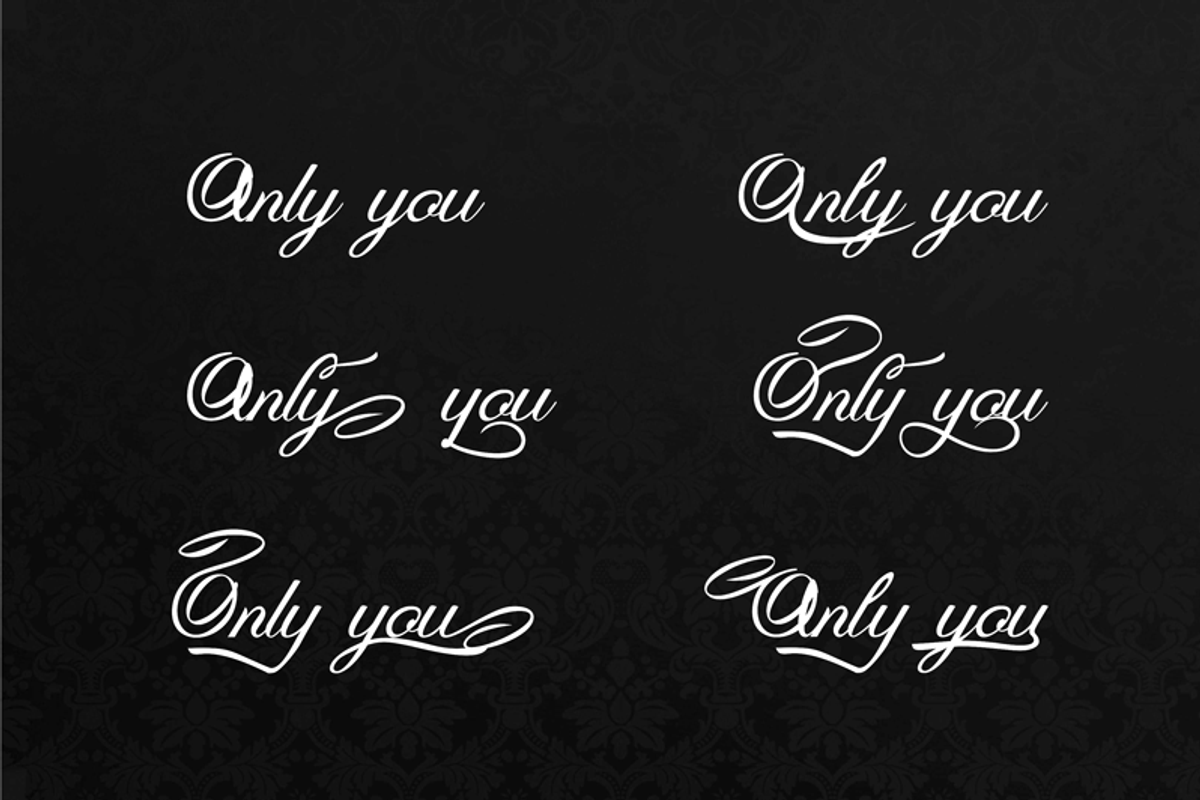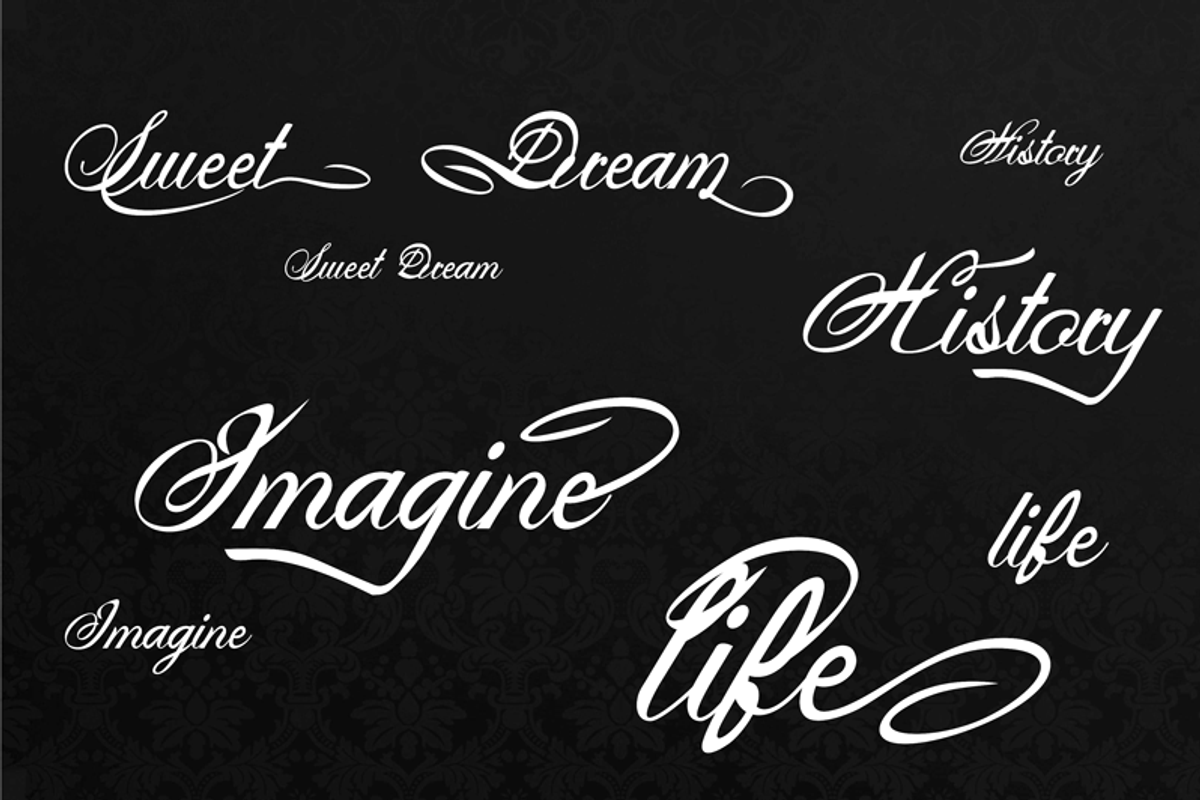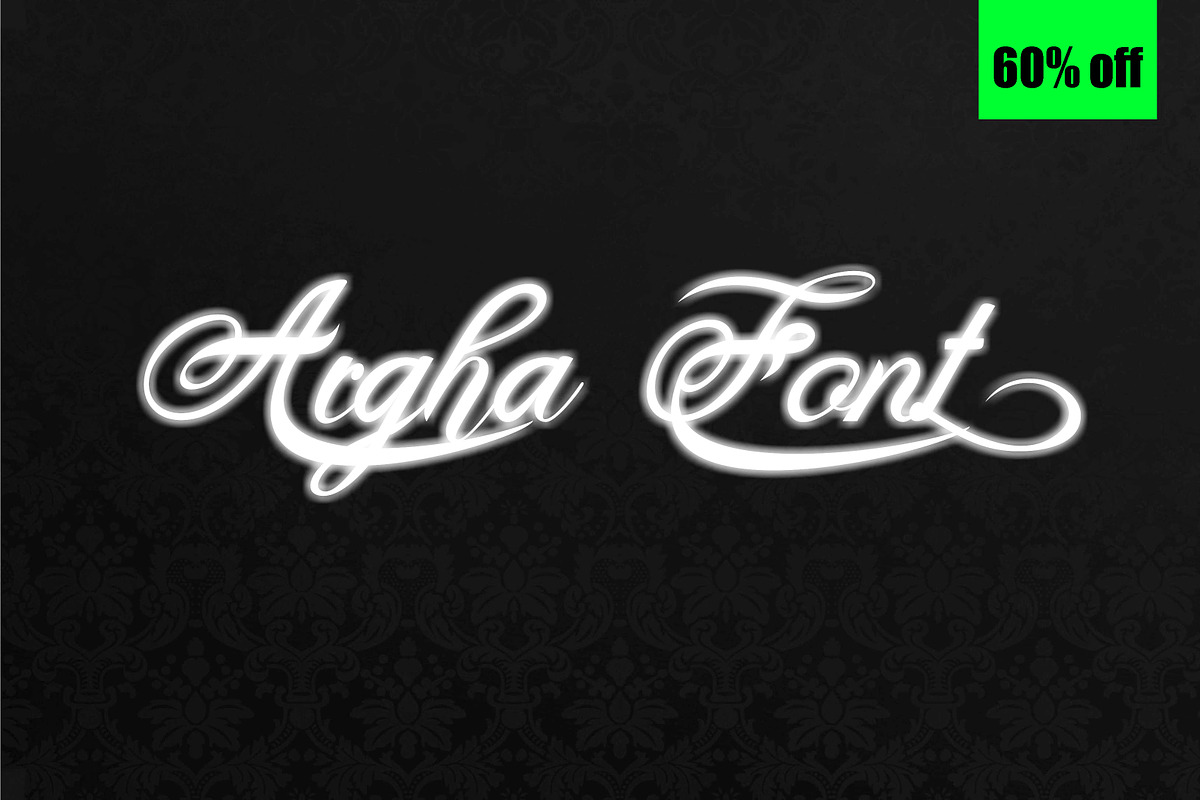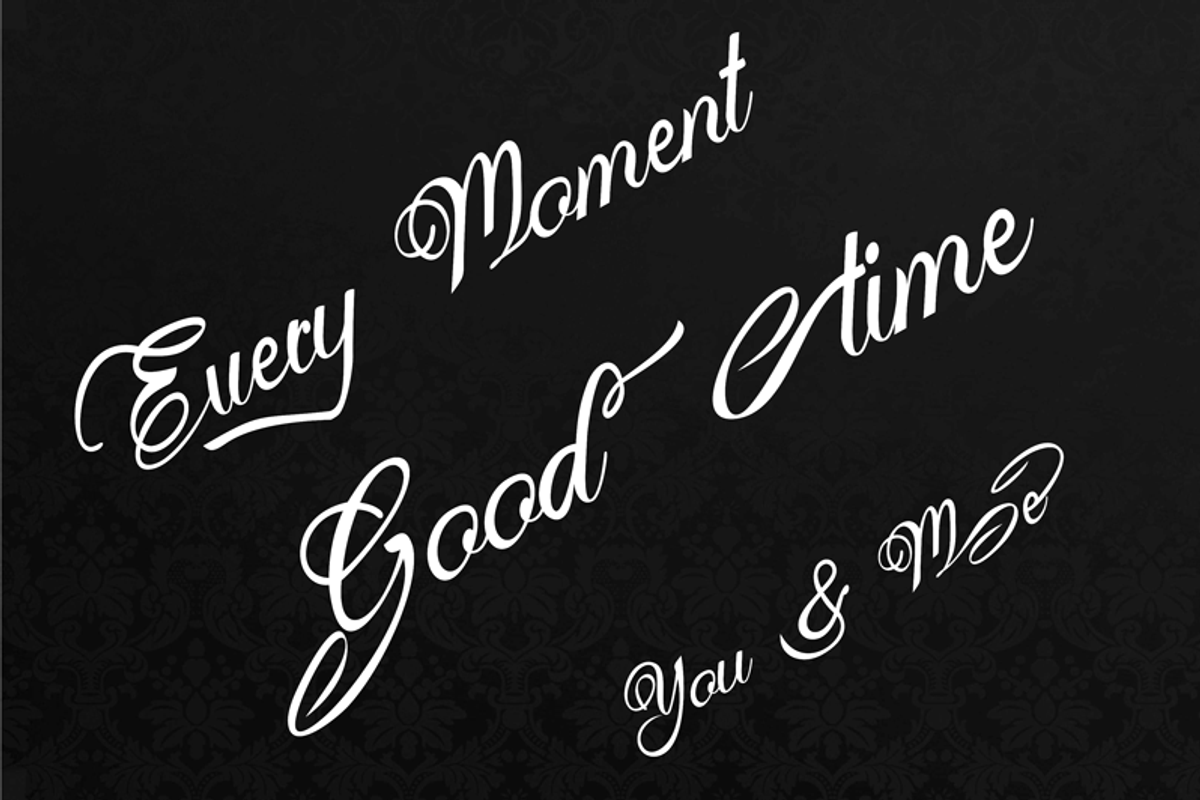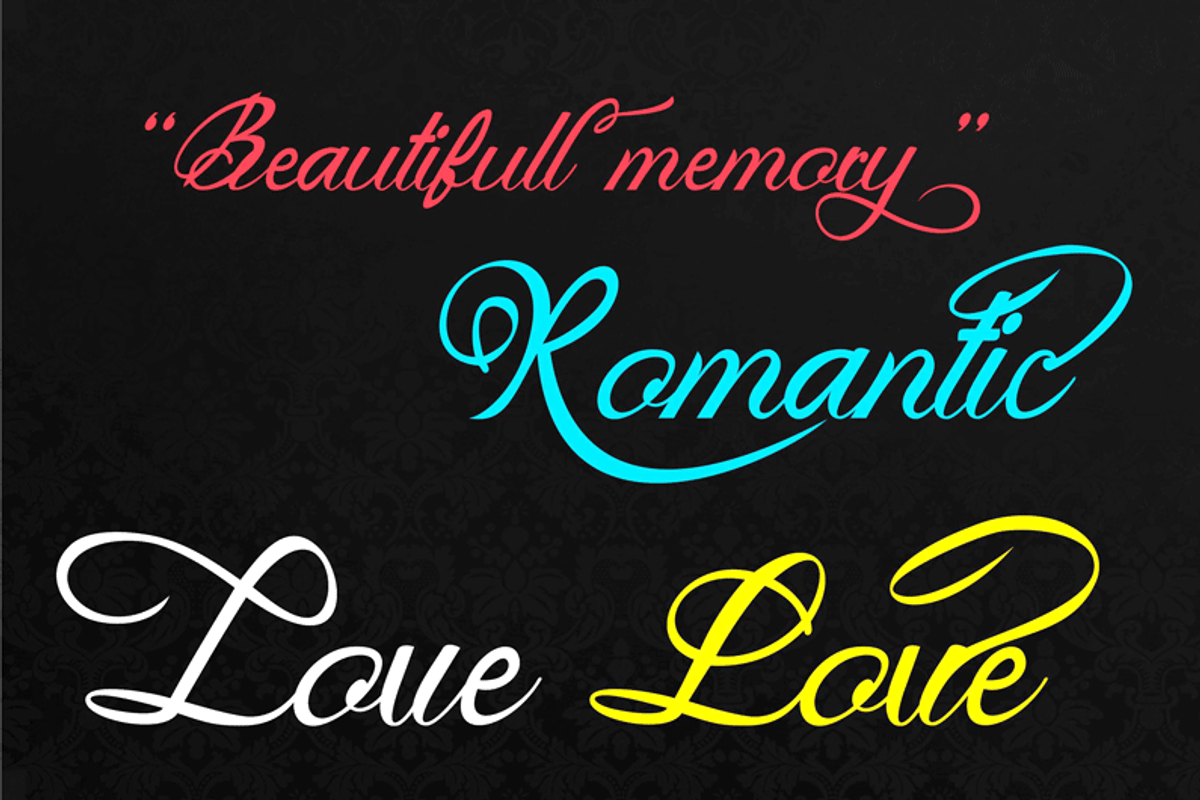
Argha Font
Argha Font by pansustea is a font selected for branding, posters, packaging, typography.
Why Argha Font is worth a look
Argha Font by pansustea fits naturally into Branding, posters, packaging, typography.